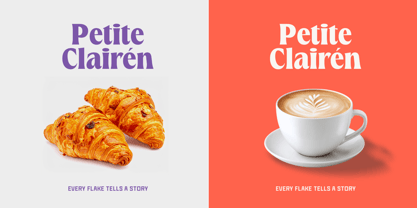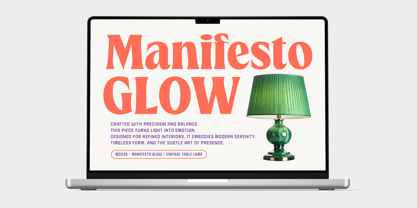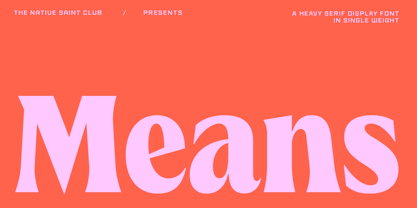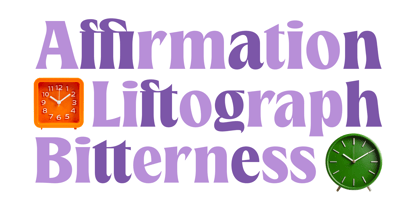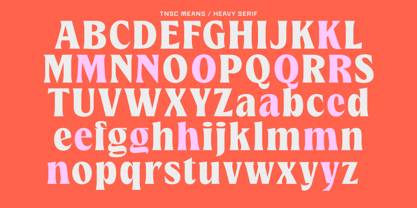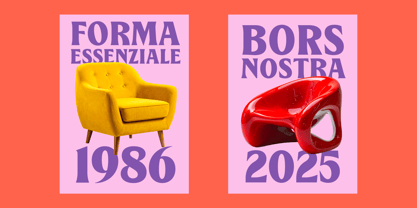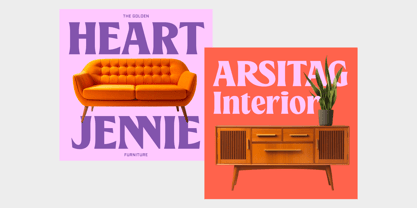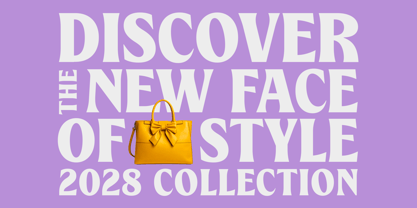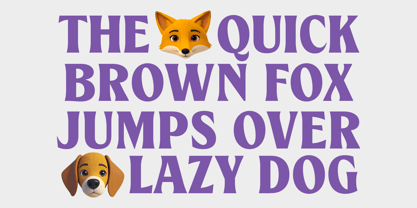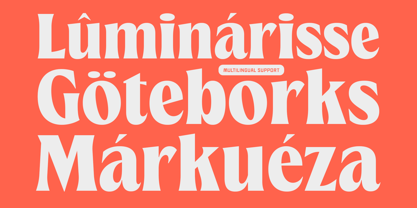
Die Schriftfamilie Means wurde von Bagas Ferdiansah, Septianto Nugroho entworfen und von The Native Saint Club veröffentlicht. Means enthält 1 Stile. Mehr über diese Familie
TNSC Means is a clean and confident heavy serif display font made for bold titles and clear visual impact. It works great for branding, packaging, posters, and editorial designs that need strong and readable typography. Each letter is built with balanced shapes and consistent weight, giving your design a solid and professional look. We hope you enjoy the font, please feel free to comment if you have any thoughts or feedback. Thanks for purchasing and have fun! Regards, The Native Saint Club
Means